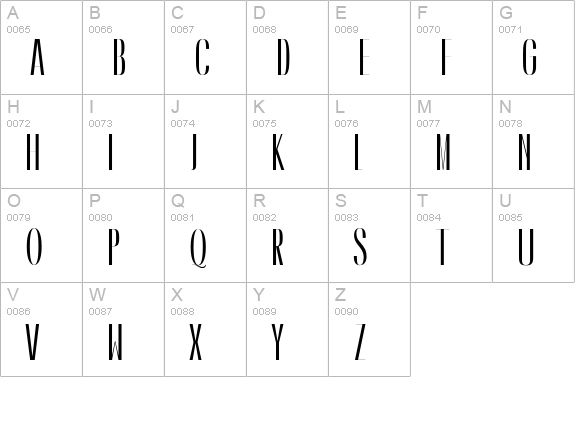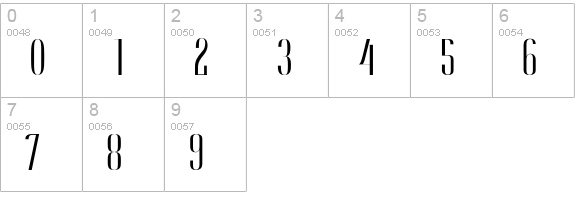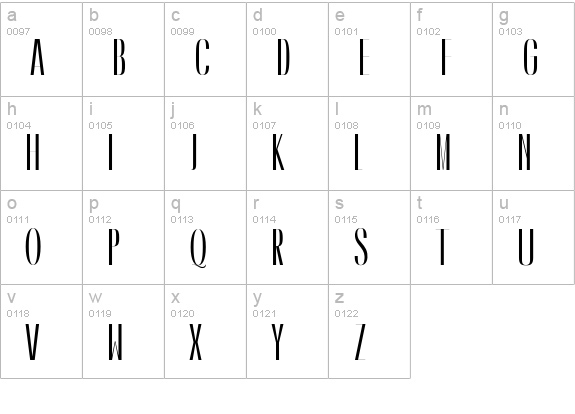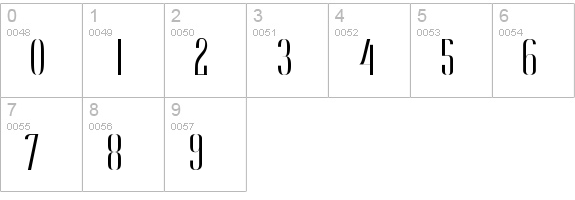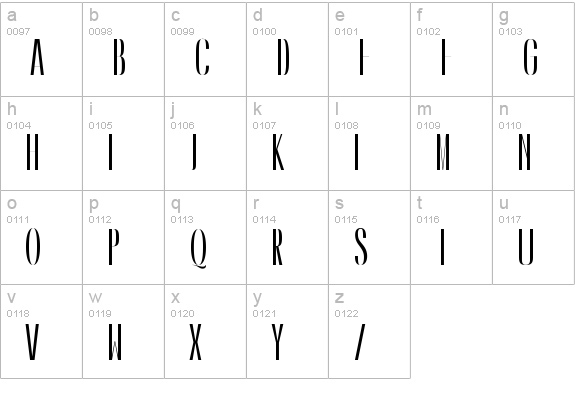
Caledo Bold Font Details
Caledo Bold is a strong, high-contrast variant in the Caledo typeface family \xE2\x80\x94 well suited to headlines, attention-grabbing titles, and strong calls-to-action.
Introducing Caledo Bold, a charismatic and versatile font that exudes confidence and elegance. With its bold and commanding presence, Caledo Bold is perfect for making a statement in any design project. This striking typeface boasts strong, thick lines that effortlessly capture attention and convey a sense of authority. Whether used for headlines, logos, posters, or branding materials, Caledo Bold commands attention and ensures your message is heard loud and clear. The exquisite details of Caledo Bold are evident in its carefully crafted letterforms. Each character is meticulously designed to balance legibility with a touch of artistic flair. The result is a font that is both visually appealing and highly readable, making it suitable for a wide range of creative applications. One of the best aspects of Caledo Bold is that it is freely available to download at FontsMarket.com. This means that designers, artists, and creatives can easily access this exceptional font without any cost. Whether you are a professional designer or a hobbyist, having access to such a high-quality font for free is truly a game-changer. Caledo Bold offers a vast array of glyphs, including uppercase and lowercase letters, numbers, punctuation marks, and special characters. This extensive character set ensures that you have all the tools you need to create stunning and unique designs that truly stand out from the crowd. With its timeless appeal and unparalleled versatility, Caledo Bold is a font that will elevate any design project to new heights. Its bold and commanding presence, coupled with its accessibility through FontsMarket.com, makes it a must-have for any creative endeavor. So why wait? Download Caledo Bold today and let your creativity soar.